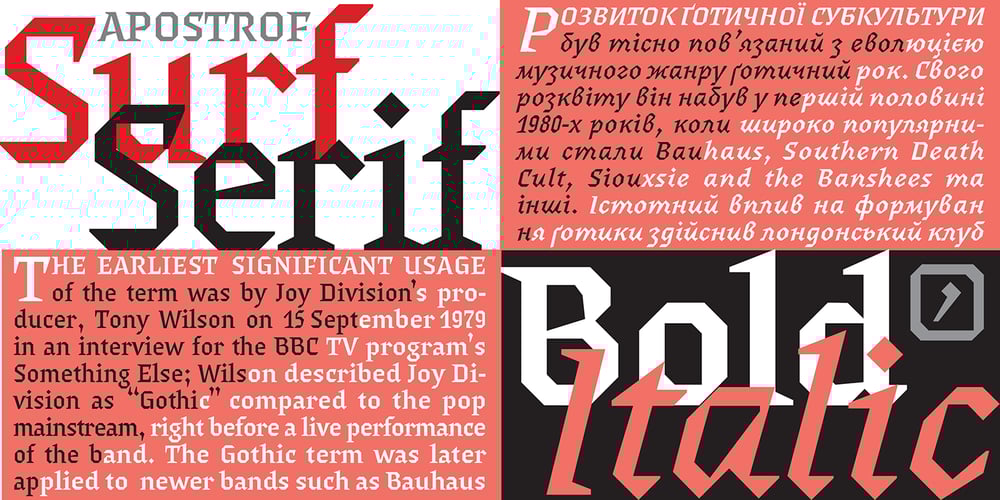
Surf Serif Pro Font Family was designed by Viktor Kharyk and published by Apostrof. Surf Serif Pro contains 4 styles and family package options. Surf Serif is the font that retains some features and proportions of the old-style antiqua, but is adapted for modern conditions, mainly screen ones. Its uncompromising hard lines and corners create an expressive contemporary image being used in larger point sizes accidents. In the text sizes the font proportions, its triangular serifs and the displaced stresses cause some associations with the early Renaissance and even a gothic style. It makes the text useful where brutal modernity must be combined with historical allusions. For example the font seems to be suitable for decoration and advertising of modern Gothic fashion.